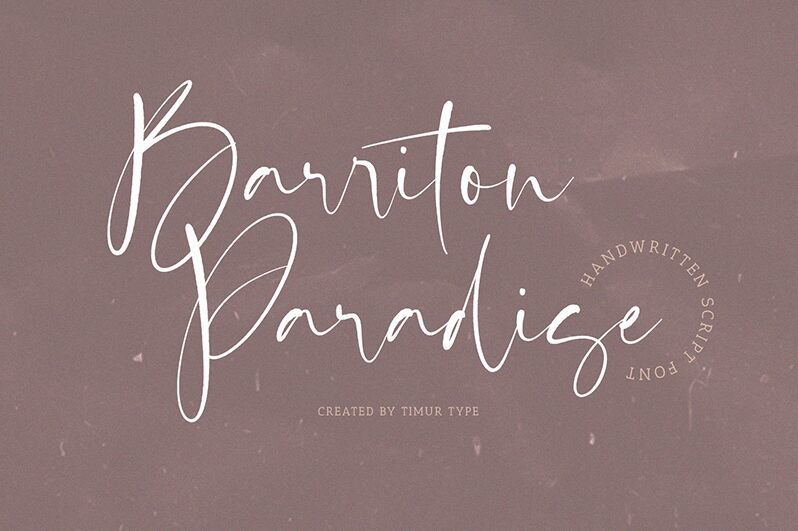
Barriton Paradise
Barriton Paradise, a signature-style handwritten font crafted by Timur Type, exudes a captivating charm that effortlessly blends elegance and personality. This light-weight font's fluid strokes and graceful curves evoke a sense of warmth and authenticity, lending a touch of artisanal flair to any design.
Barriton Paradise's versatility shines through its ability to seamlessly adapt to a wide range of applications, from invitations and stationery to branding and packaging. Its distinctive handwritten aesthetic makes it an ideal choice for projects seeking to convey a personal, handcrafted aesthetic, while its legibility ensures smooth readability across various mediums.